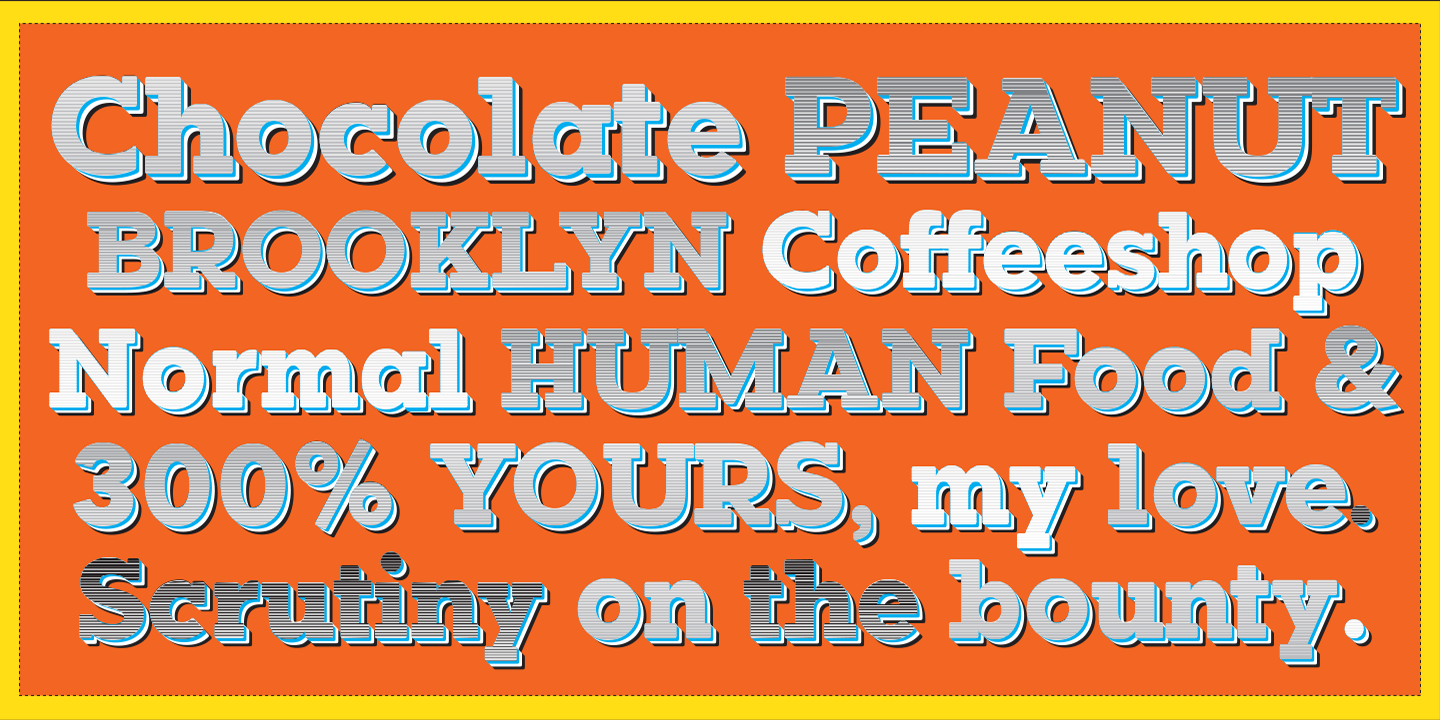
Okojo Slab Pro Stack Font is perfect for layered logo designs, dimensional signage projects, architectural branding, modern editorial layouts, industrial design applications, contemporary poster art, professional presentations, and sophisticated stacking typography systems.
What makes Okojo Slab Pro Stack Font exciting is its innovative stackable design system that allows designers to create stunning dimensional effects and layered typography compositions. The robust slab serif foundation combined with precise stacking capabilities opens unlimited creative possibilities for three-dimensional text arrangements.
Okojo Slab Pro Stack Font family includes multiple stackable layers, various weights from light to black, condensed and extended versions, plus special alignment guides and kerning systems optimized for professional stacking applications.
Build extraordinary dimensional designs with Okojo Slab Pro Stack Font Free Download, the revolutionary typography system that transforms flat text into captivating three-dimensional experiences. This groundbreaking typeface combines traditional slab serif reliability with cutting-edge stacking technology, enabling designers to create layered compositions that were previously impossible with conventional fonts. The meticulously engineered letterforms feature perfect alignment systems that ensure seamless stacking across all weights and styles, maintaining crisp readability while achieving stunning visual depth. Professional designers and brand agencies consistently select this font for projects requiring innovative typography solutions that command attention and communicate forward-thinking creativity. Its comprehensive stacking system provides unlimited artistic possibilities while maintaining consistent professional quality throughout complex layered hierarchies. Experience the future of dimensional typography that elevates your projects beyond traditional design boundaries and establishes your work as cutting-edge visual communication.